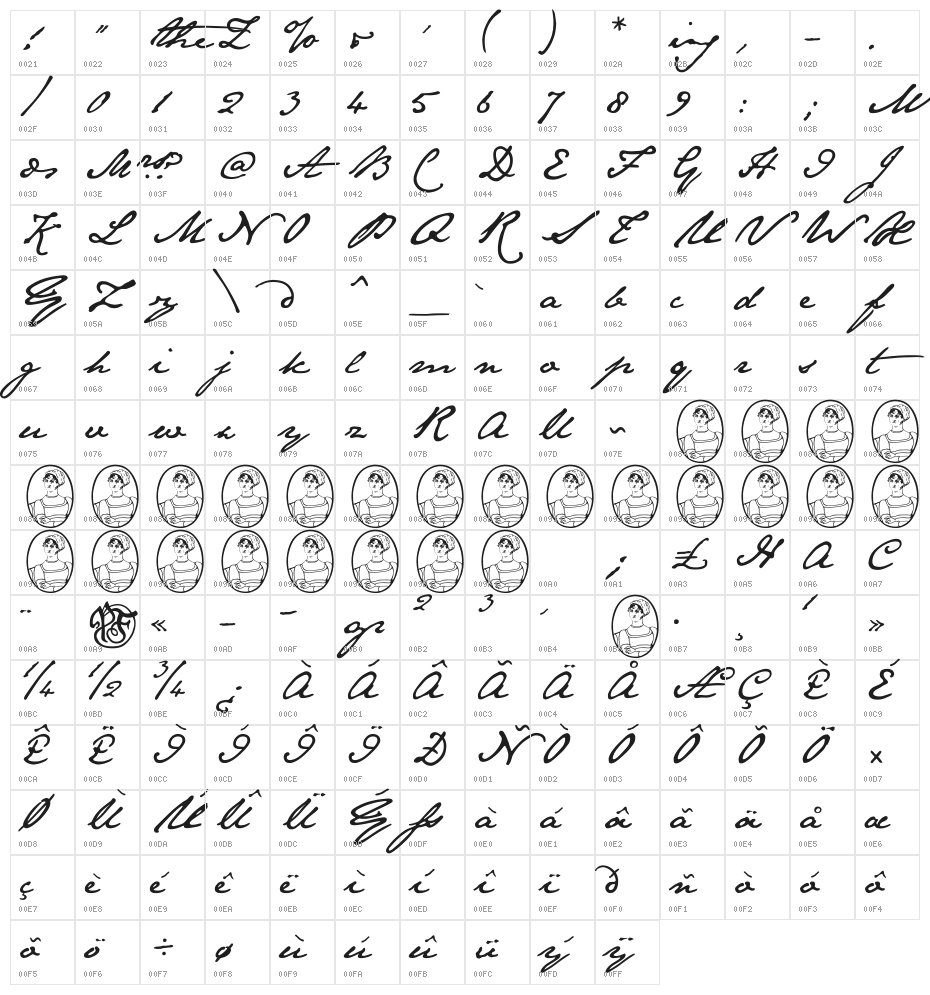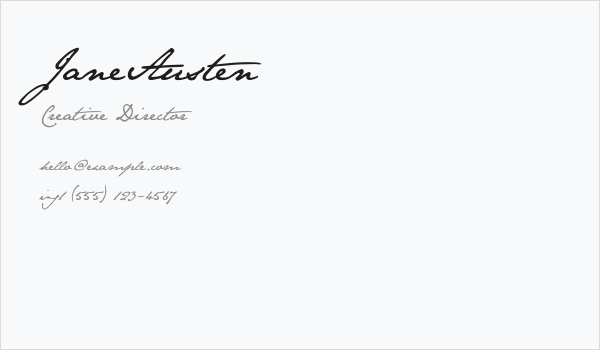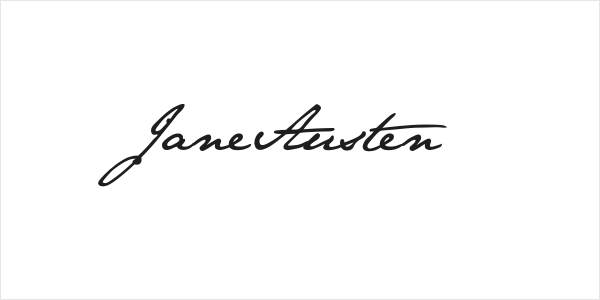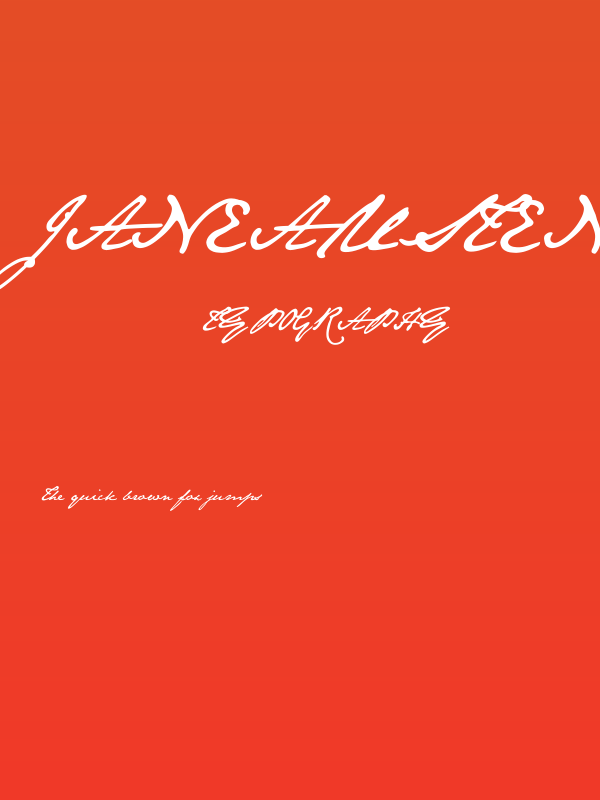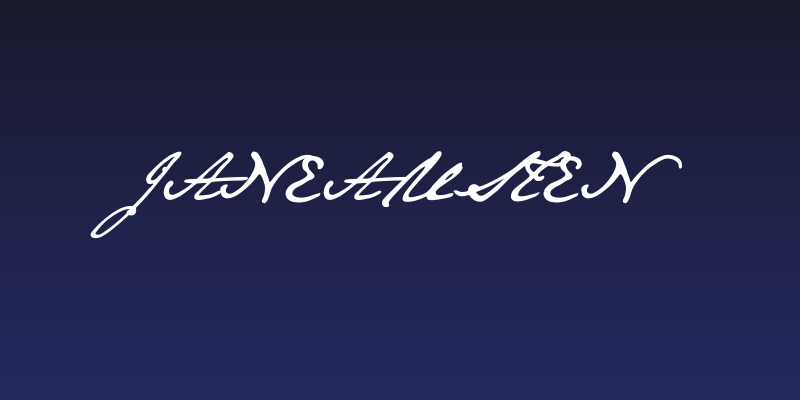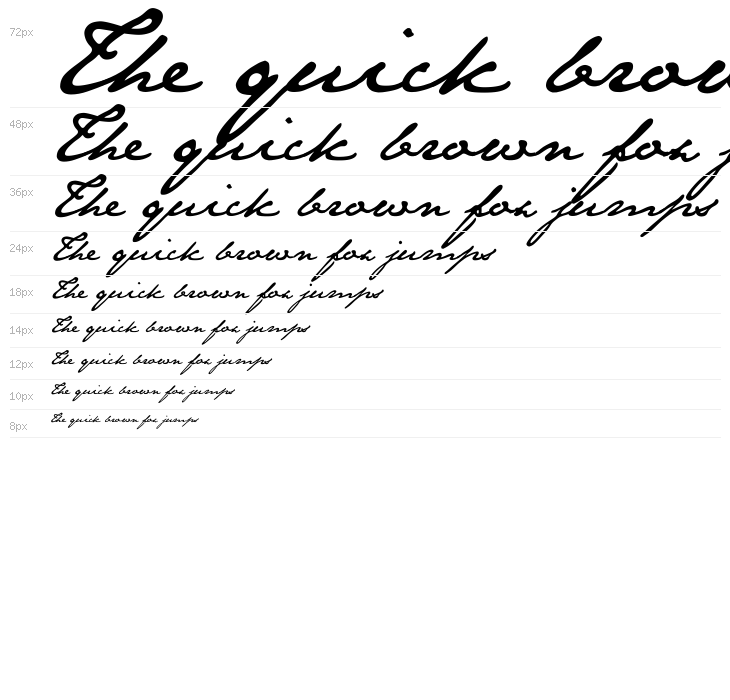
JaneAusten Font
JaneAusten Description
This elegant script font exudes a classic and sophisticated charm, reminiscent of handwritten letters from a bygone era. The characters are gracefully connected, with smooth, flowing lines and delicate curves that create a sense of fluidity and movement. The uppercase letters are ornate and slightly larger, providing a striking contrast to the more subdued lowercase letters. Numbers and special characters maintain the same elegant style, ensuring consistency throughout. This font is perfect for adding a touch of refinement and elegance to any project.
| Proposed Projects | Ideal for wedding invitations, formal event programs, elegant branding, and personal stationery. |